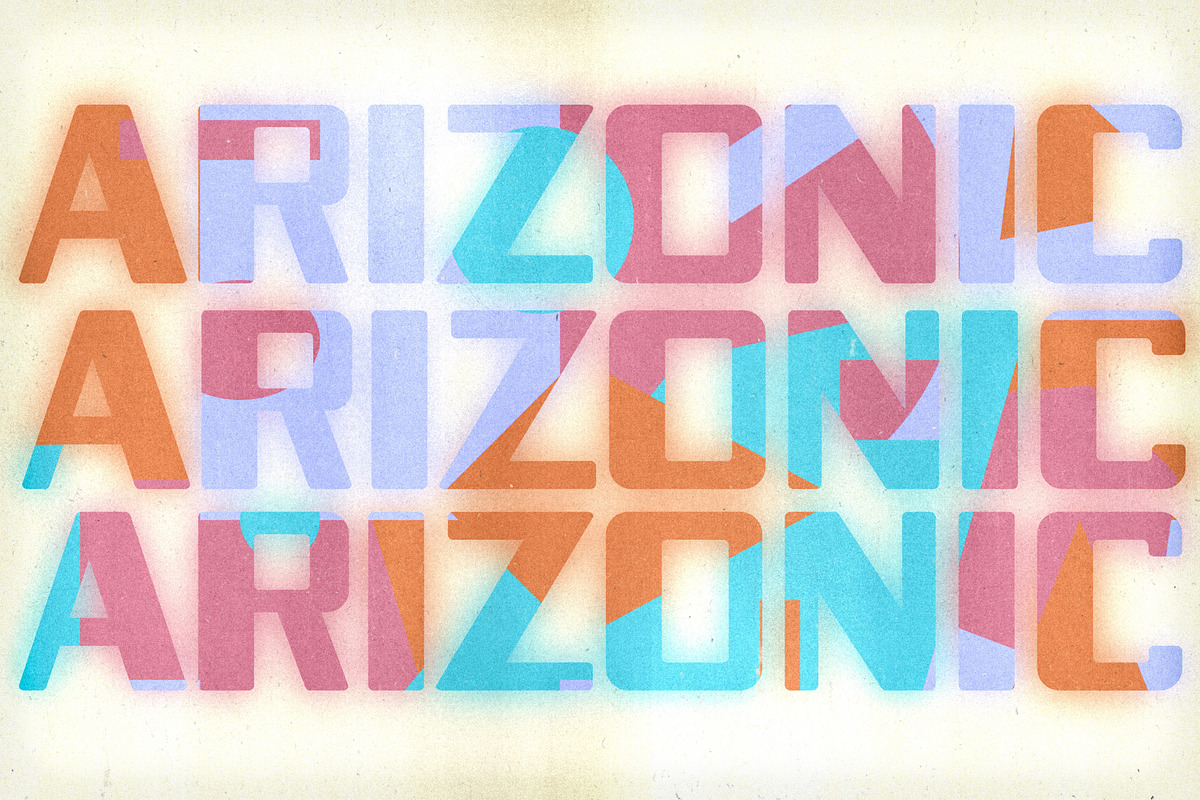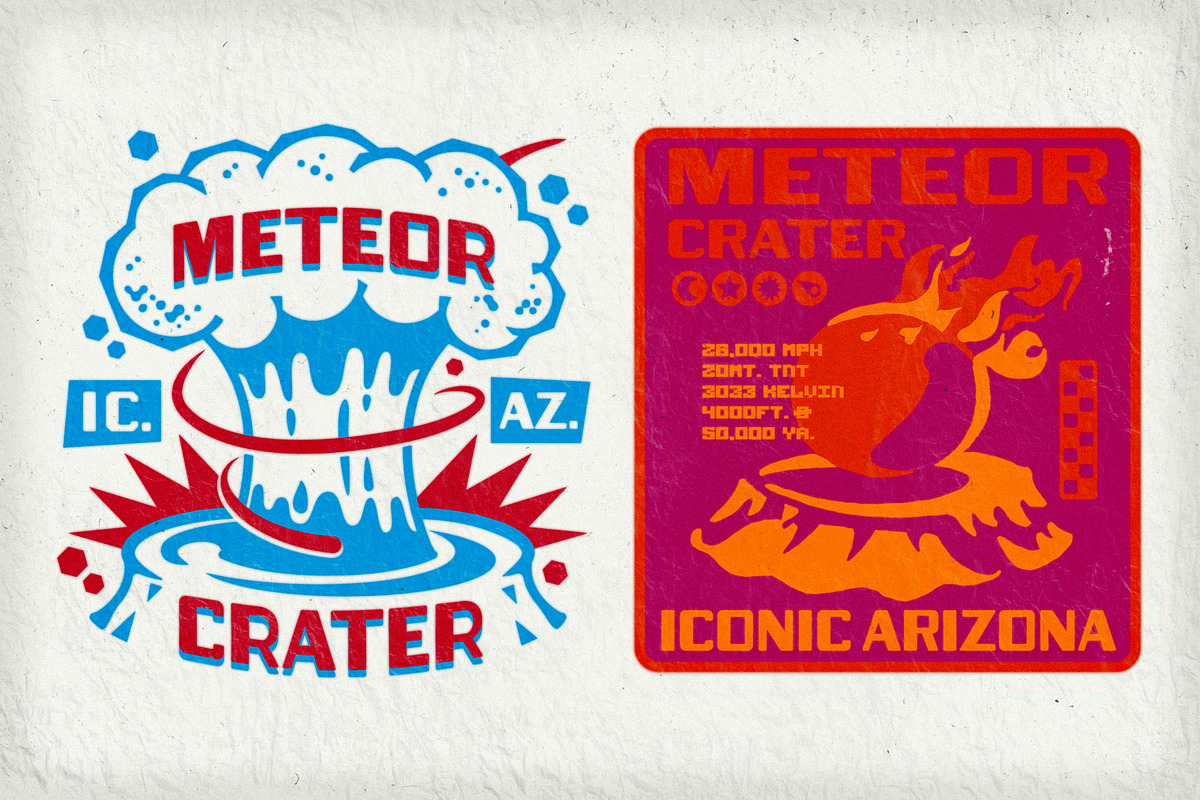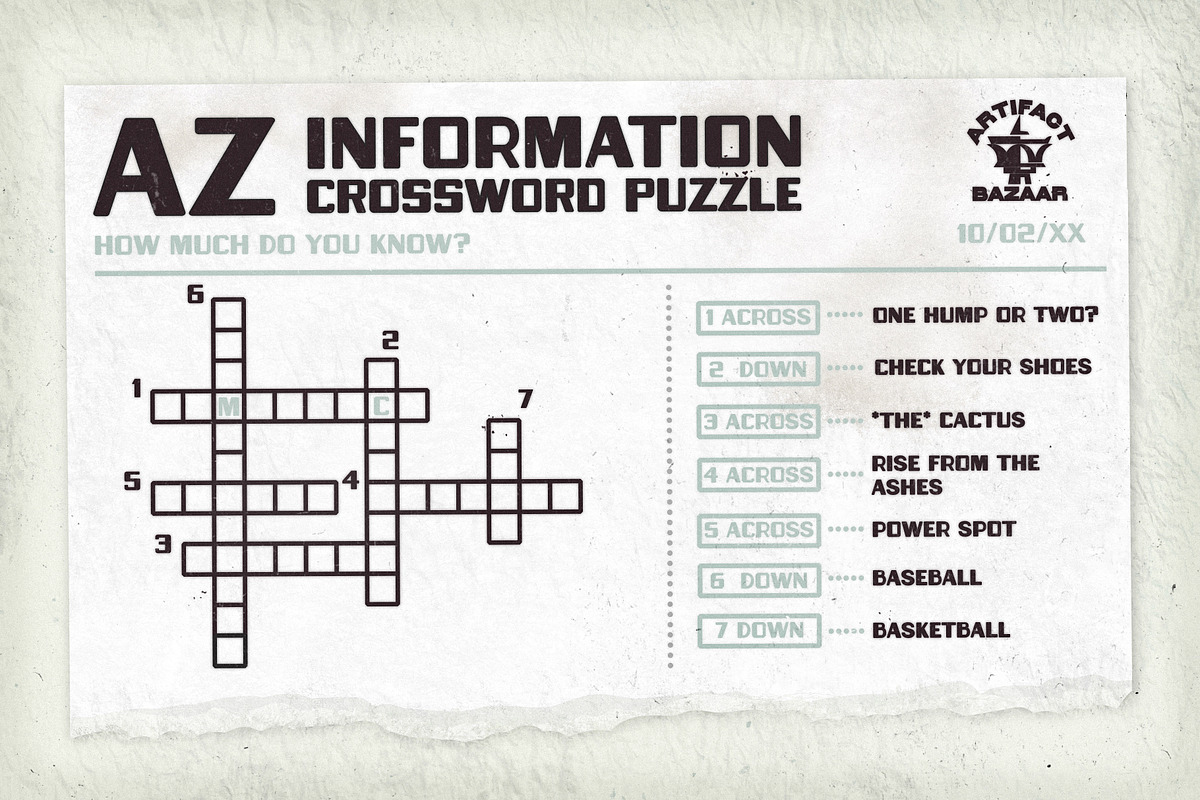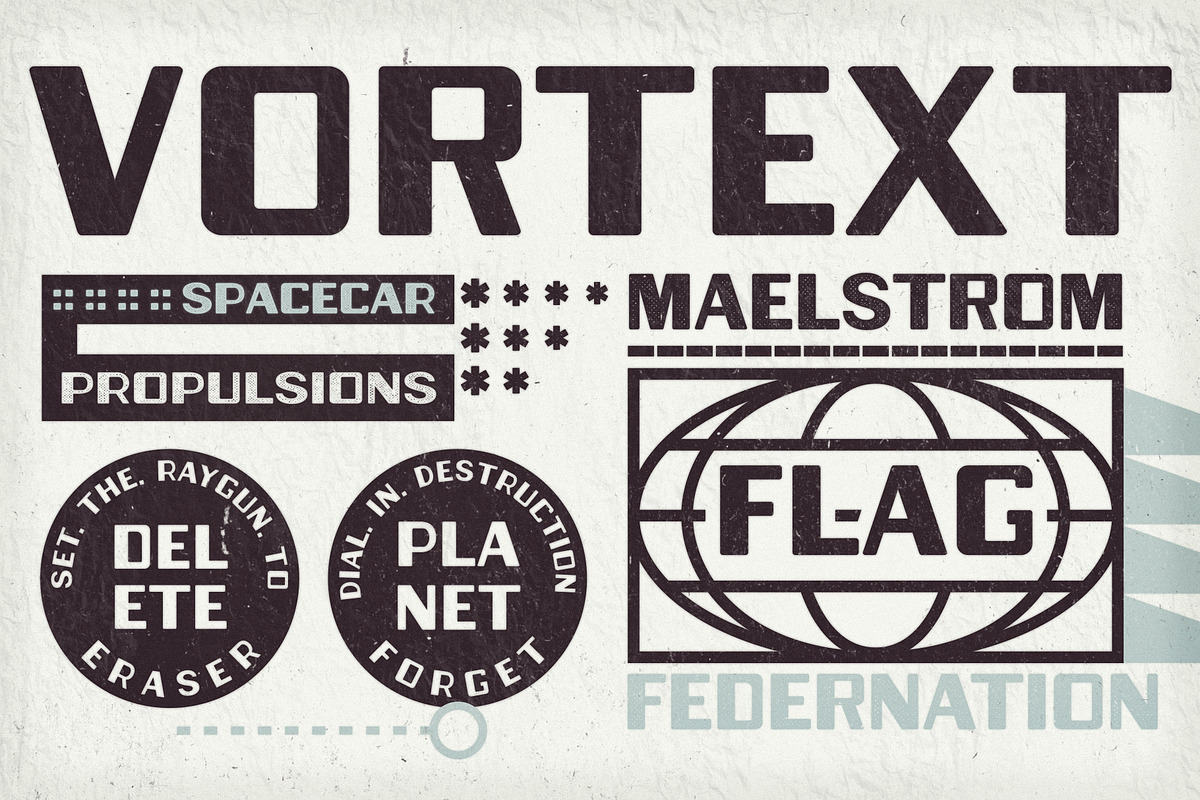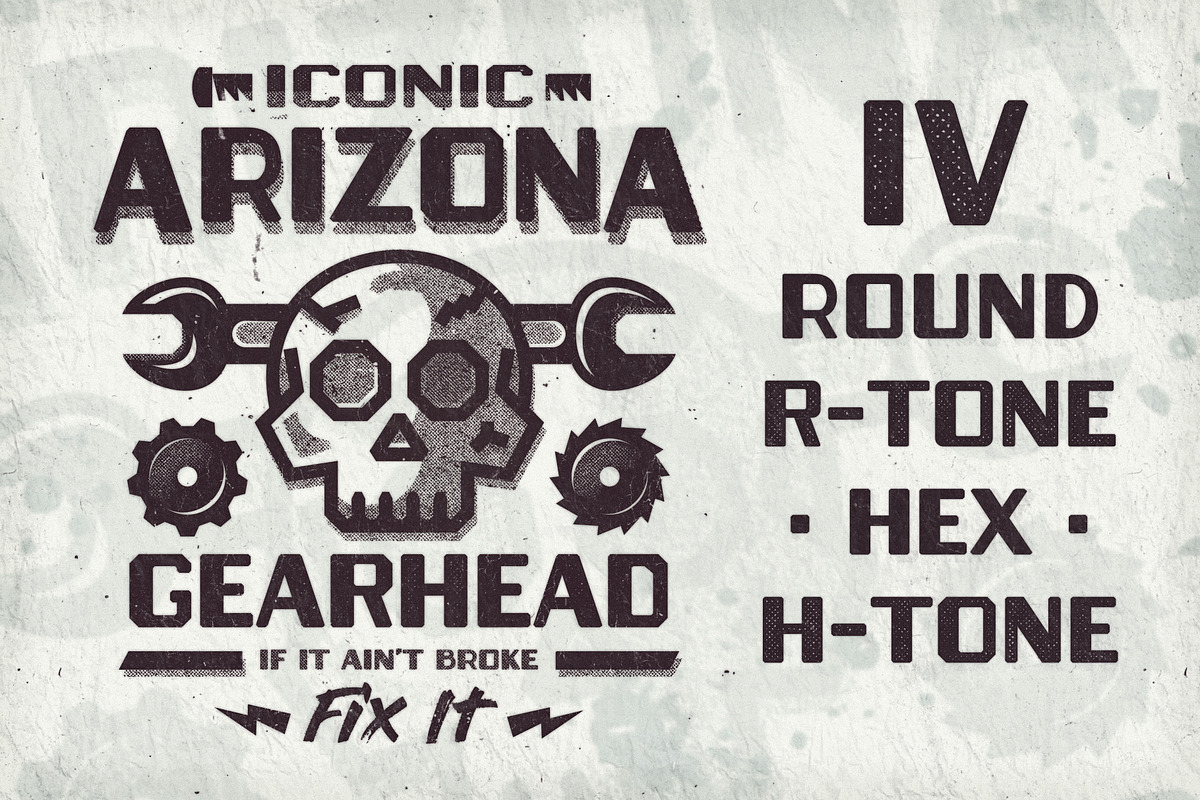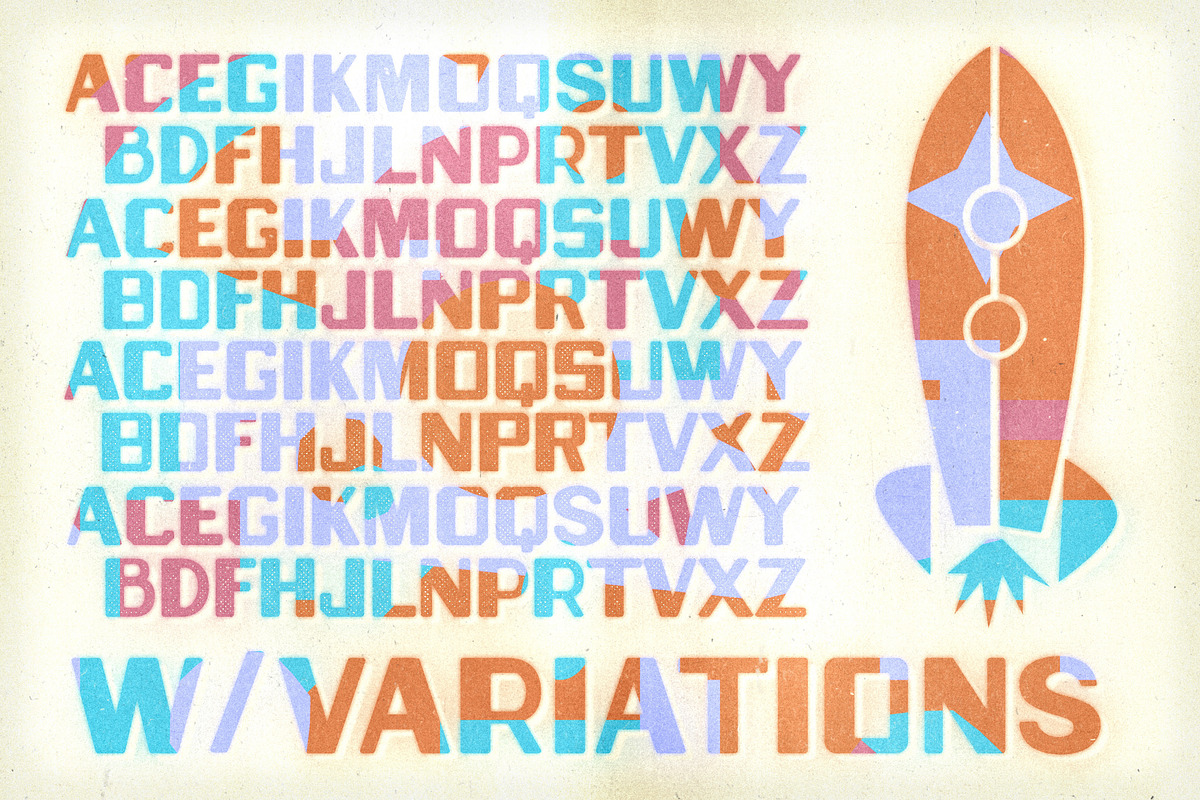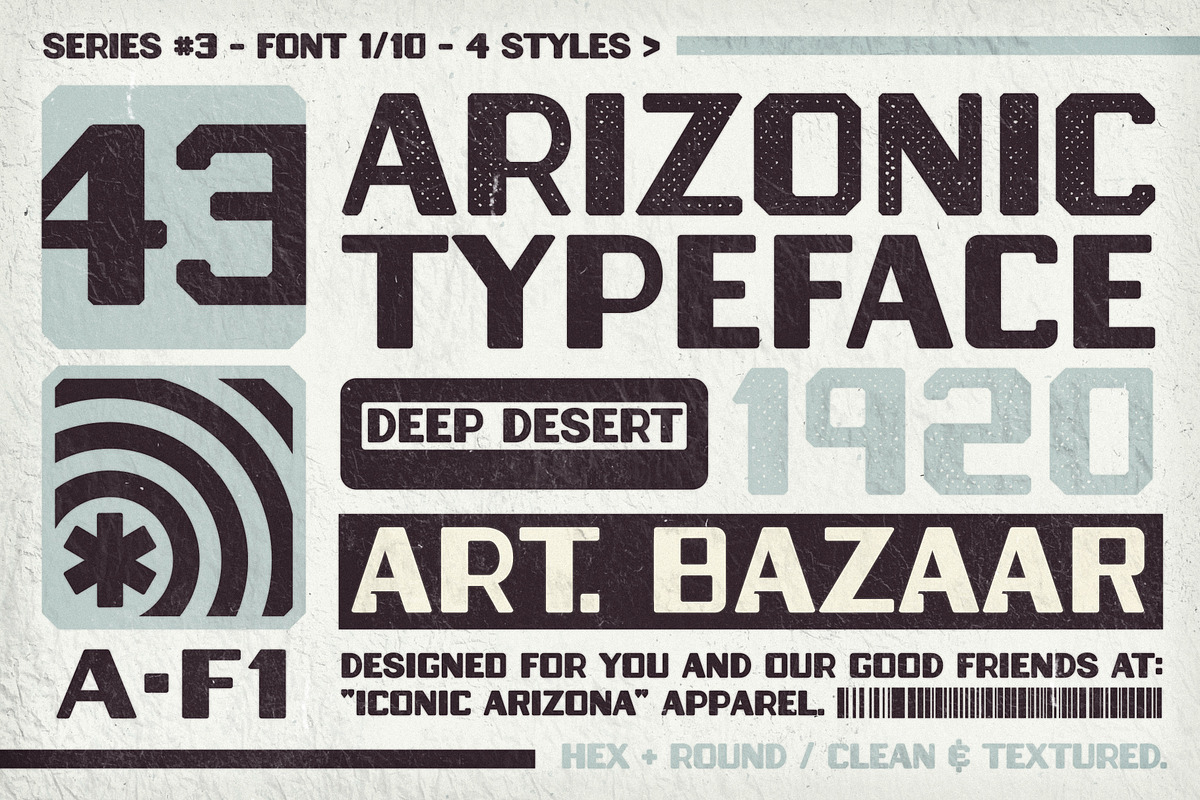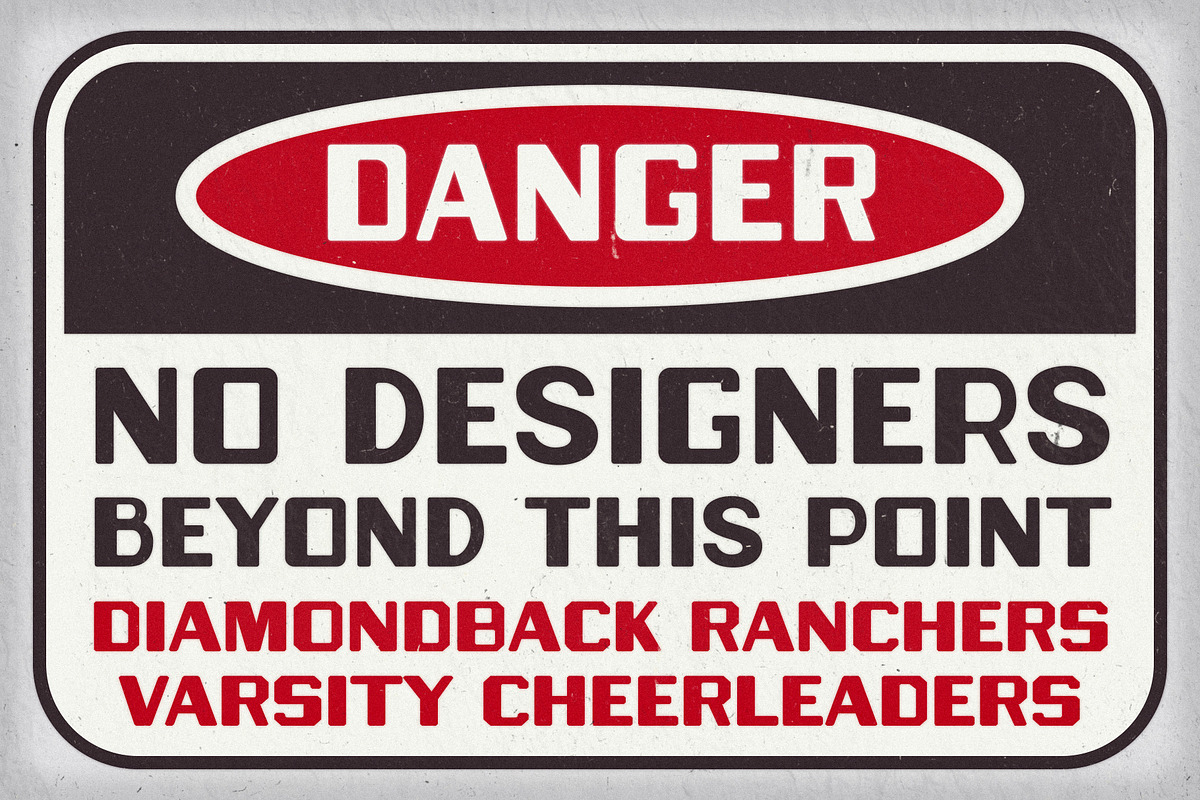
Arizonic | Vintage Futuristic Type
The future as seen from the past: vintage computer type, mechanical with a human signpainter's touch. AZ made by AZ locals. Named for fan-favorite brand "Iconic Arizona." With Meteor Crater design origins, Arizonic fits right in with the scenery of Wes Anderson's ASTEROID CITY without being derivative.
- A SERIES 3 Artifact Bazaar Font
- 4 Styles
- Glyph Style Variants
- Texture Variations
- All punctuation and special characters
- Round
- Hex
- Round Halftone
- Hex Halftone